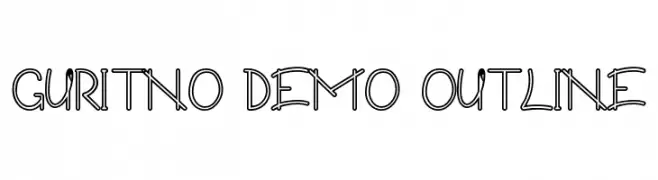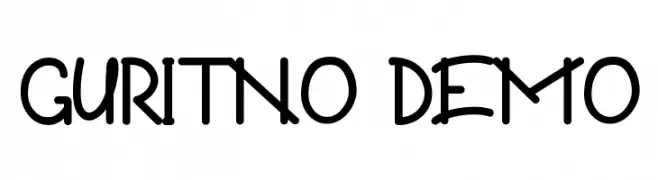
A playful, handwritten font with consistent stroke width and whimsical character design.
A modern, artistic outline font with playful curves and angles.